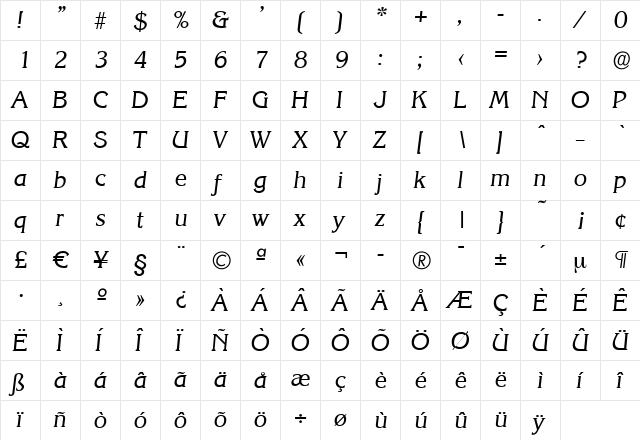
AlanBecker Italic
Design Context for AlanBecker Typeface
AlanBecker is a composed and adaptable typeface that performs quietly and consistently across a wide range of design contexts. The dynamic lean of this cut emphasises speed and emphasis in any layout.
Pro Tip: Try AlanBecker for annotation and caption copy alongside an upright companion — the contrast in angle creates a dynamic but ordered typographic system.